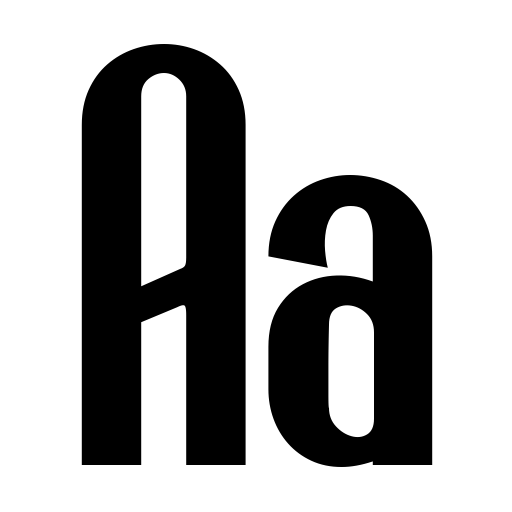
Boom Amorita is a tall, condensed sans-serif font with a bold weight and a modern, slightly industrial feel. Its high x-height and clean, straight lines give it strong legibility, while subtle quirks like the unique shapes of characters add personality. This font is perfect for impactful headlines, branding, and editorial designs that need a confident, contemporary edge.
Boom Amorita Font
About Boom Amorita Font
| Designer | Dian Haniffan Hadi |